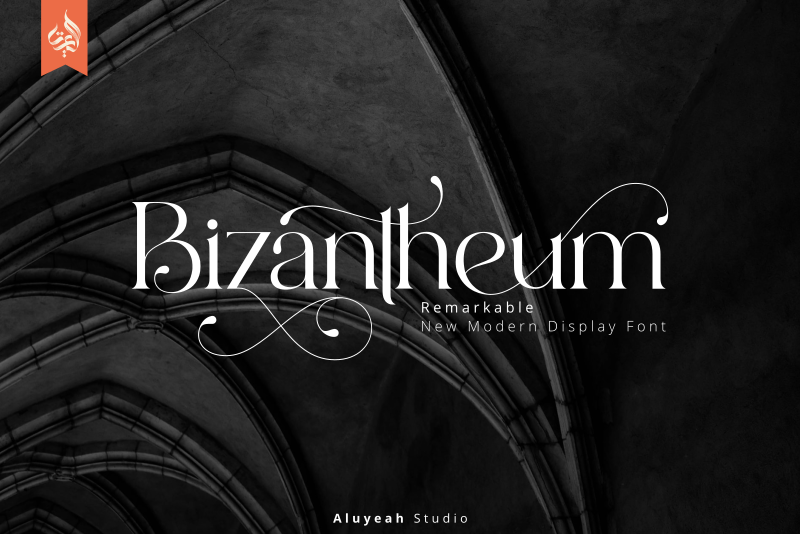
A Font by Aluyeah Studio To get results like the preview just type B.3iz.2ant.2he.2um Bizantheum, remarkable new modern display font. Inspired by the majesty and mystique of the Byzantine era buildings. Coming with 130+ stunning and super easy to use alternates. This version is a Personal to Use Only. If you wish to use it for commercial use, you need to purchase a license. Need for commercial use? https://aluyeah.com/product/bizantheum/ Buy me a coffee? https://paypal.me/aluyeahstudio Email me support@aluyeah.com |